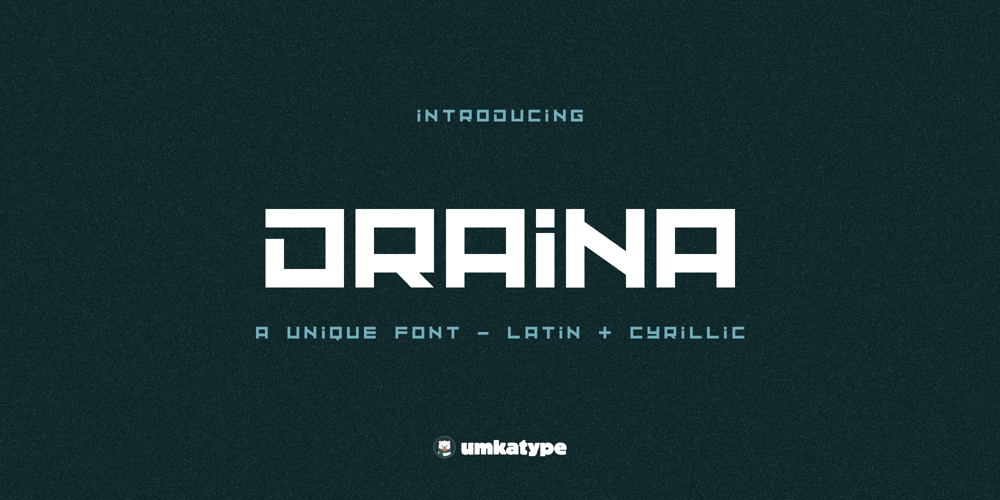
Draina Font Family was designed by Alper Çakıcı and published by Umka Type. Draina contains 1 styles and family package options. Driana is a modern, versatile square block font with excellent kerning, making it ideal for both digital and print use. It features full support for the Cyrillic language, allowing for seamless multilingual communication. Driana’s unique design combines classic proportions with a contemporary feel, making it stand out from other geometric fonts.It supports 99 Languages: Azerbaijani, Belarusian, Bosnian, Bulgarian, Chechen, Macedonian, Ossetic, Russian, Sakha, Serbian, Uzbek, Afrikaans, Albanian, Asu, Basque, Bemba, Bena, Breton, Catalan, Chiga, Colognian, Cornish, Croatian, Czech, Danish, Dutch, English, Estonian, Faroese, Filipino, Finnish, French, Friulian, Galician, Ganda, German, Gusii, Hungarian, Icelandic, Inari Sami, Indonesian, Irish, Italian, Jola-Fonyi, Kabuverdianu, Kalenjin, Kinyarwanda, Latvian, Lithuanian, Lower Sorbian, Luo, Luxembourgish, Luyia, Machame, Makhuwa-Meetto, Makonde, Malagasy, Maltese, Manx, Morisyen, Northern Sami, North Ndebele, Norwegian Bokmål, Norwegian Nynorsk, Nyankole, Oromo, Polish, Portuguese, Quechua, Romanian, Romansh, Rombo, Rundi, Rwa, Samburu, Sango, Scottish Gaelic, Sena, Serbian, Shambala, Shona, Slovak, Soga, Somali, Spanish, Swahili, Swedish, Swiss German, Taita, Teso, Turkish, Upper Sorbian, Uzbek (Latin), Volapük, Vunjo, Welsh, Western Frisian, Zulu.